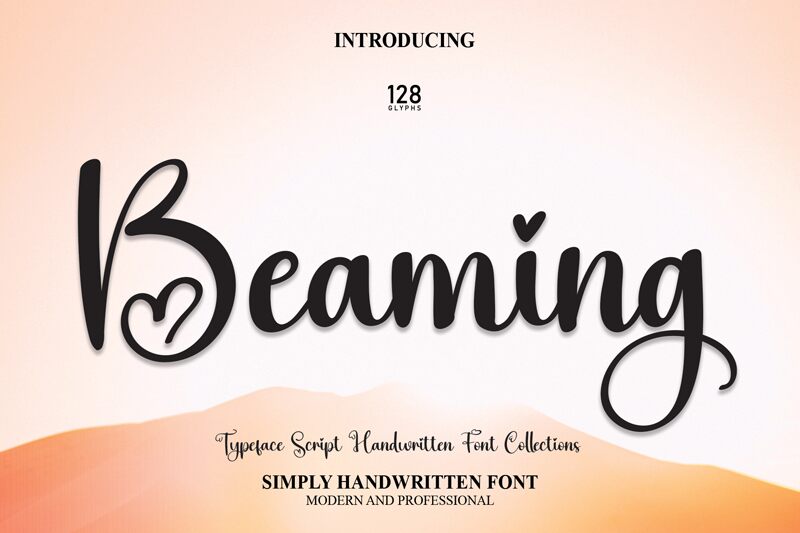
Beaming
Beaming, a captivating creation by Scratchones, is a stunning valentine calligraphy font that exudes elegance and romance. Its semi-light weight adds a touch of delicacy to any design project.
With its graceful curves and intricate details, Beaming is perfect for wedding invitations, love letters, and heartfelt greetings. The font's flowing strokes and charming flourishes effortlessly convey love and affection, making it an ideal choice for creating enchanting Valentine's Day cards or designing romantic social media posts.
Let Beaming infuse your projects with warmth and tenderness, capturing the essence of love in every stroke.